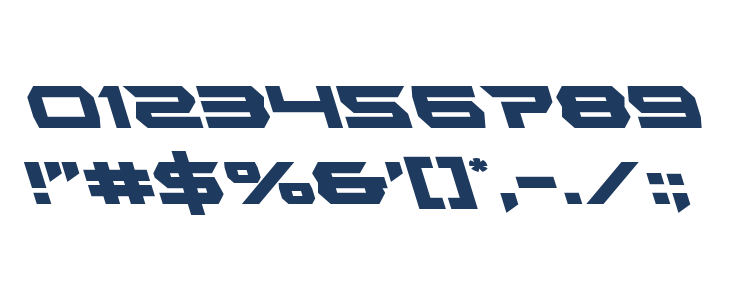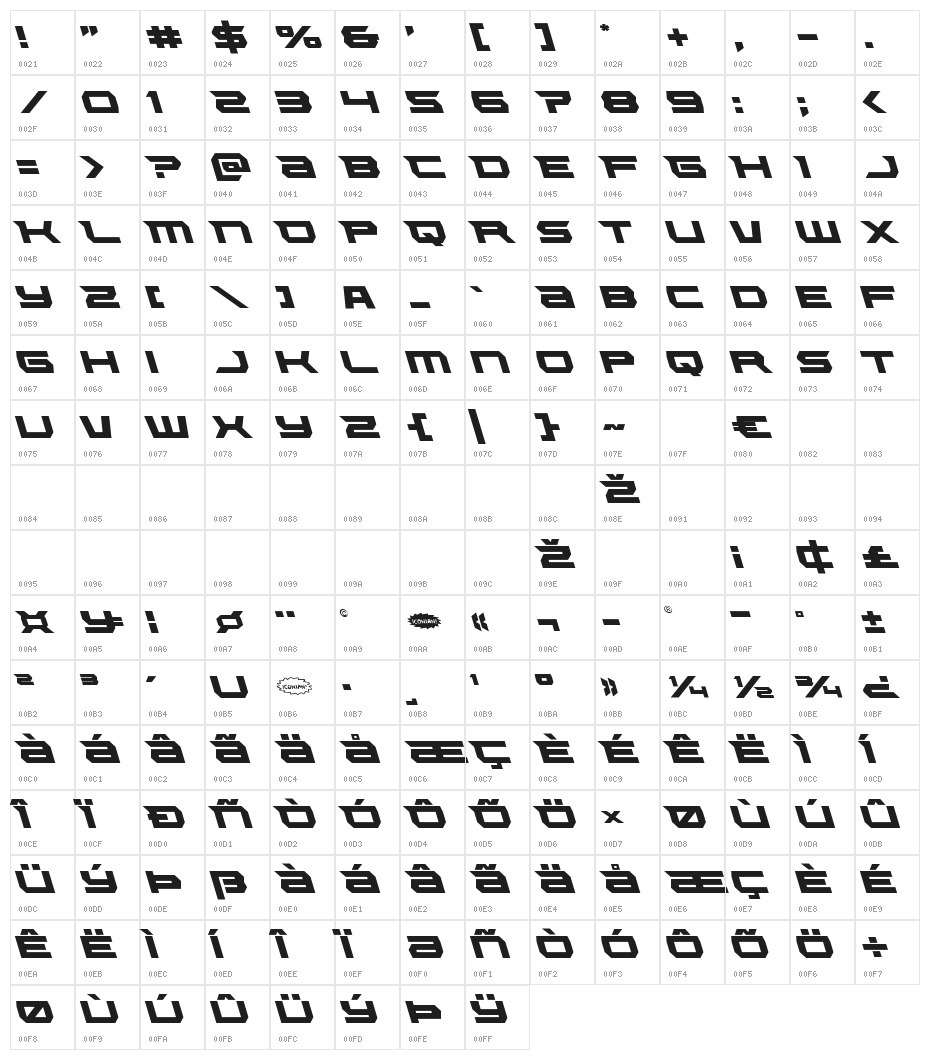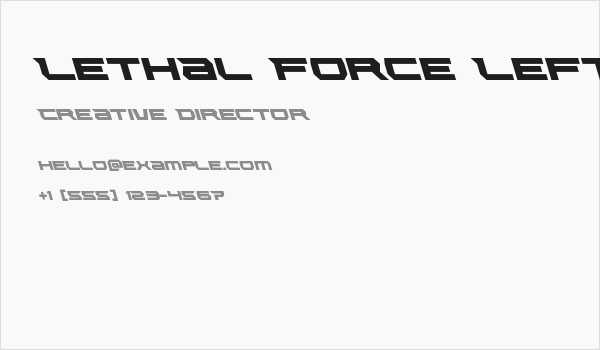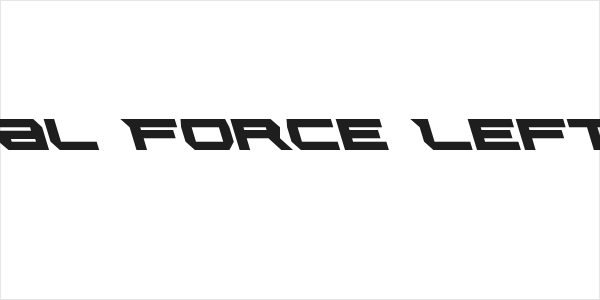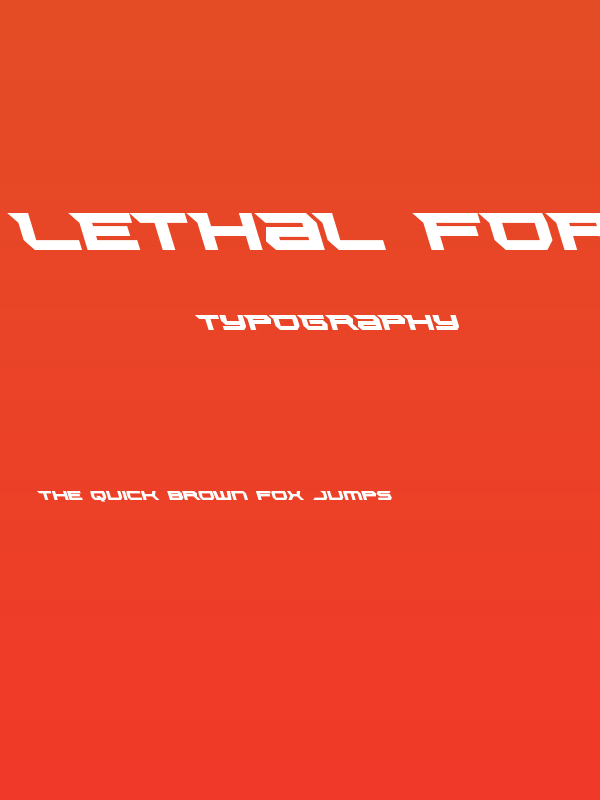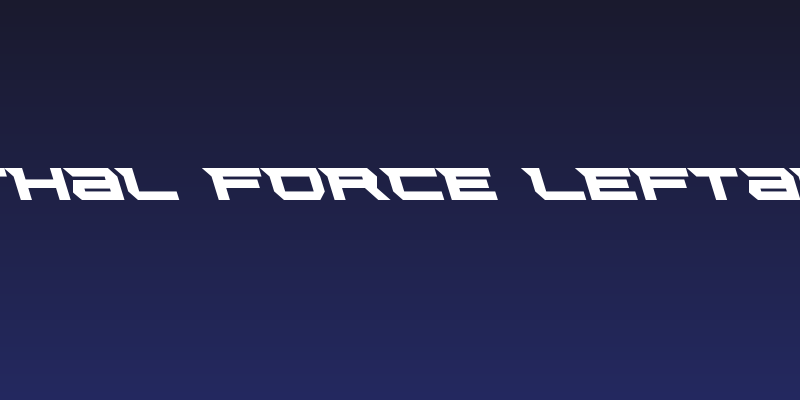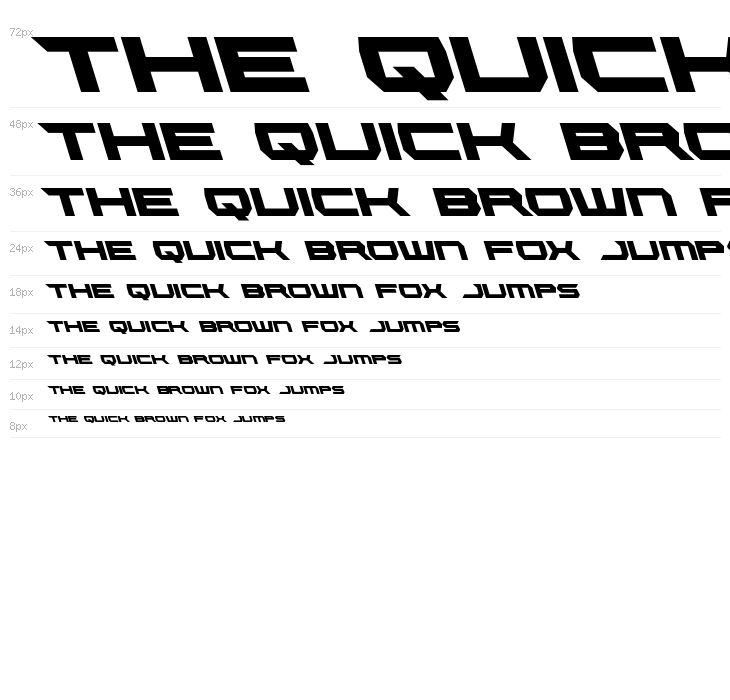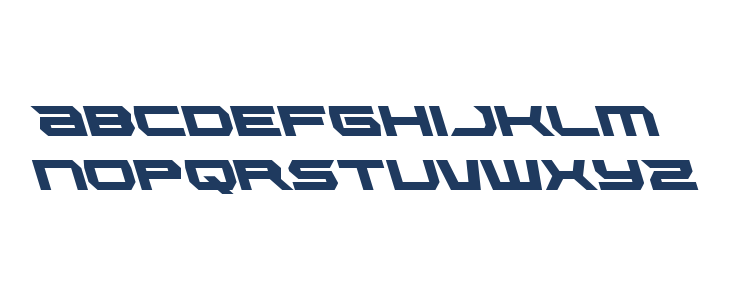
Lethal Force Leftalic Font
Lethal Force Leftalic Description
This font features a bold, angular design with a futuristic and aggressive style. The characters are sharply cut with a distinct slant, giving a sense of motion and speed. The uppercase and lowercase letters maintain a consistent geometric form, while the numbers and special characters complement the overall aesthetic. The font's unique appearance makes it ideal for projects that require a strong, impactful visual presence.
| Proposed Projects | Ideal for video game titles, movie posters, sports branding, and technology-related designs. |